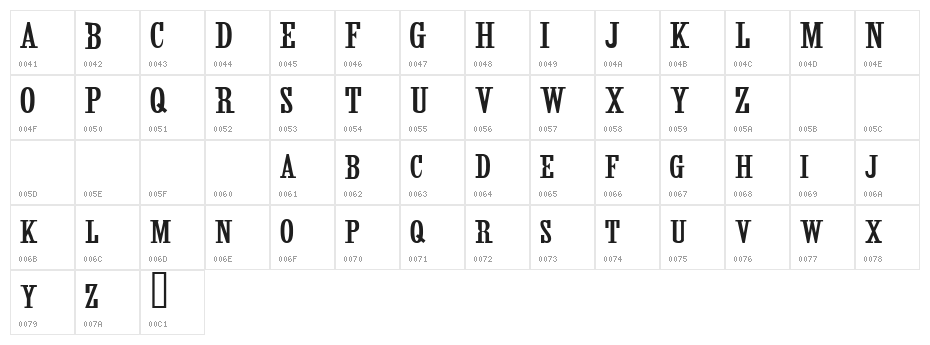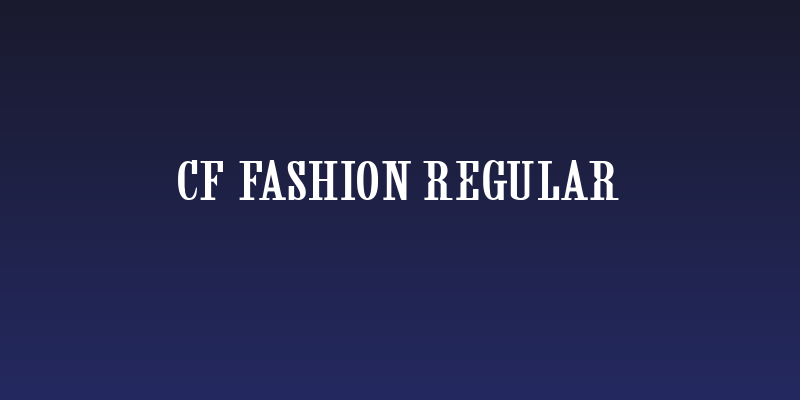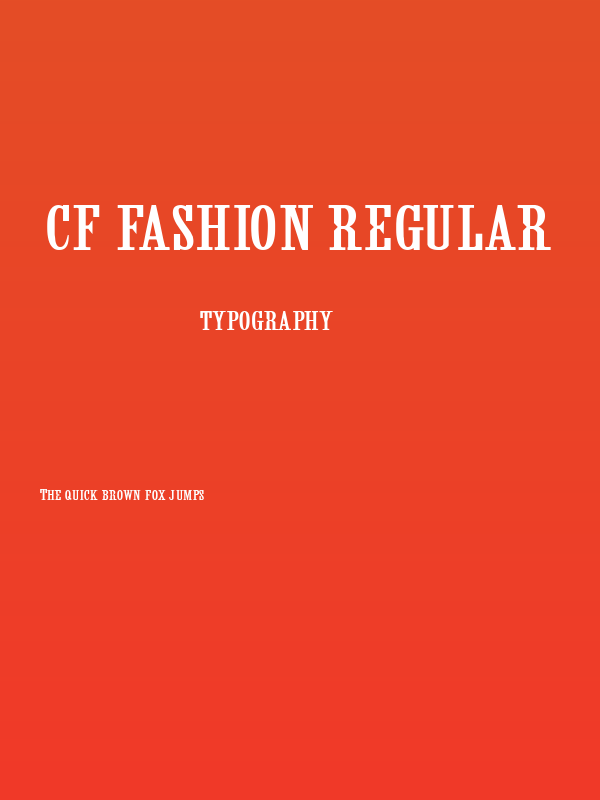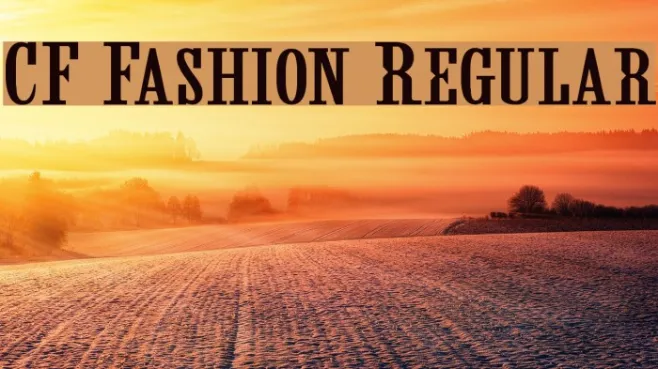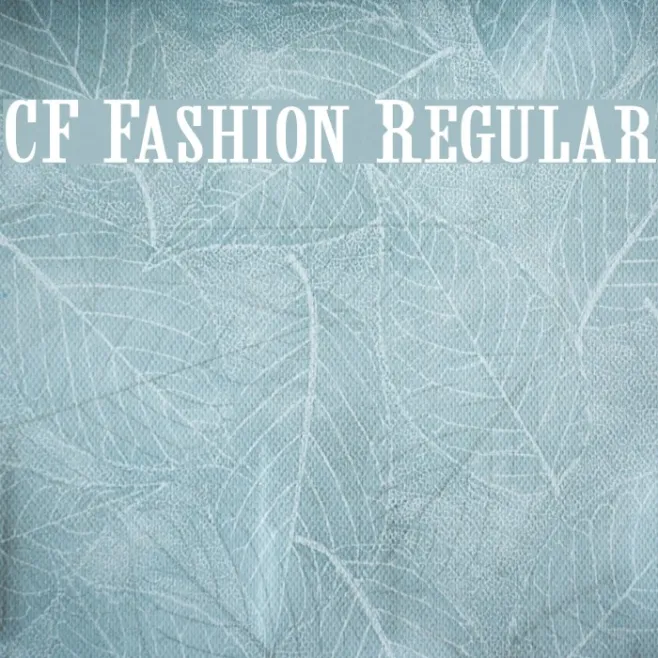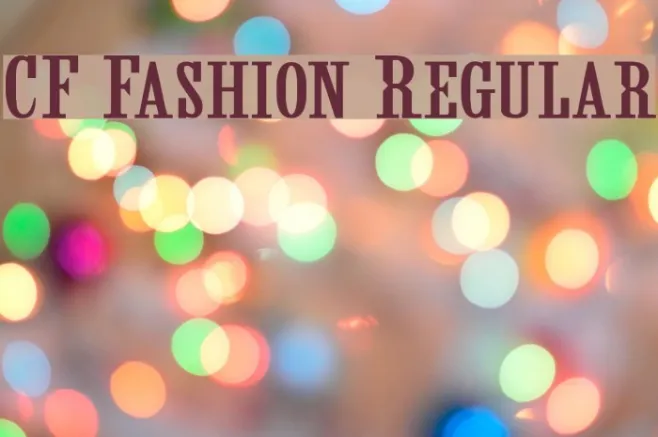
CF Fashion Regular Font
CF Fashion Regular Description
This font exhibits a bold and striking presence with its thick, slab serif design. The characters are well-defined with strong vertical lines and slightly curved serifs, giving it a robust and authoritative appearance. The uppercase letters are particularly prominent, showcasing a uniform height and width that enhances readability. The font's structure is consistent, with a balanced weight distribution that makes it suitable for impactful headlines and titles. Its classic style is reminiscent of traditional typography, yet it maintains a modern edge through its clean lines and precise geometry.
| Proposed Projects | This font is perfect for projects that require a strong visual impact, such as magazine covers, posters, branding materials, and signage. Its boldness makes it suitable for headlines and titles that need to capture attention. |